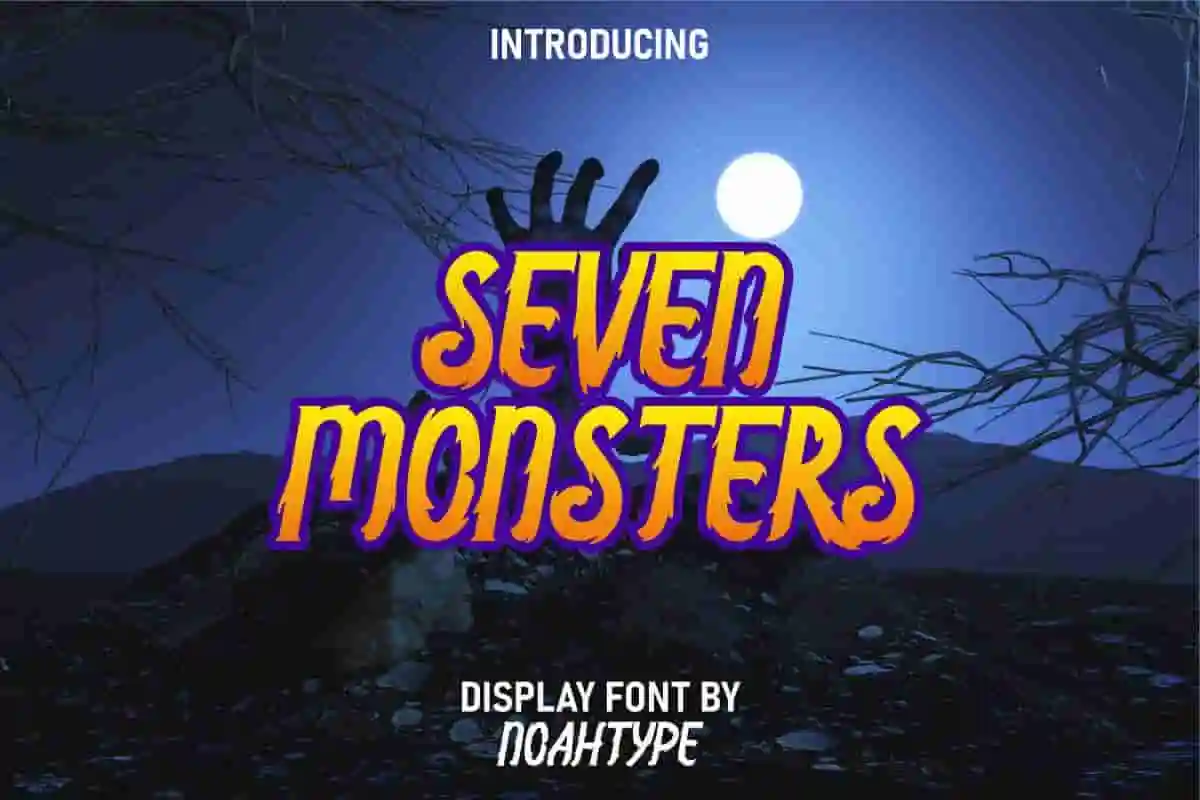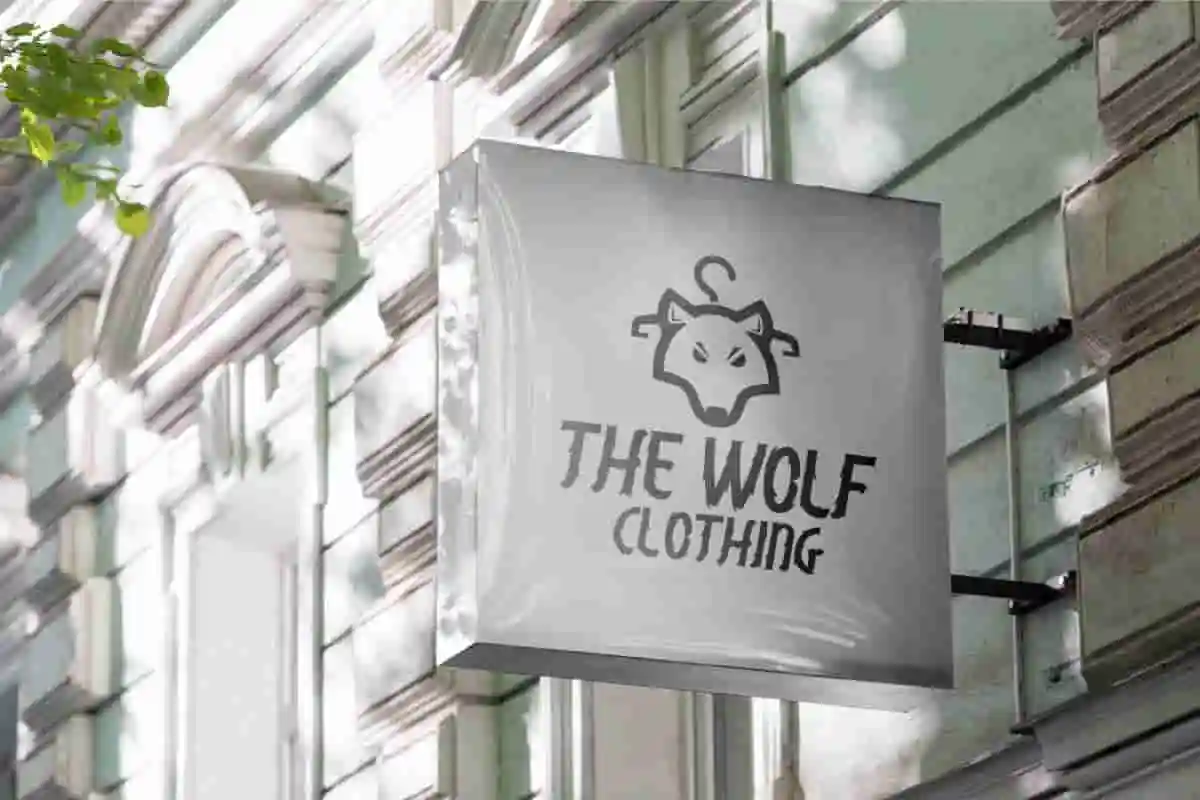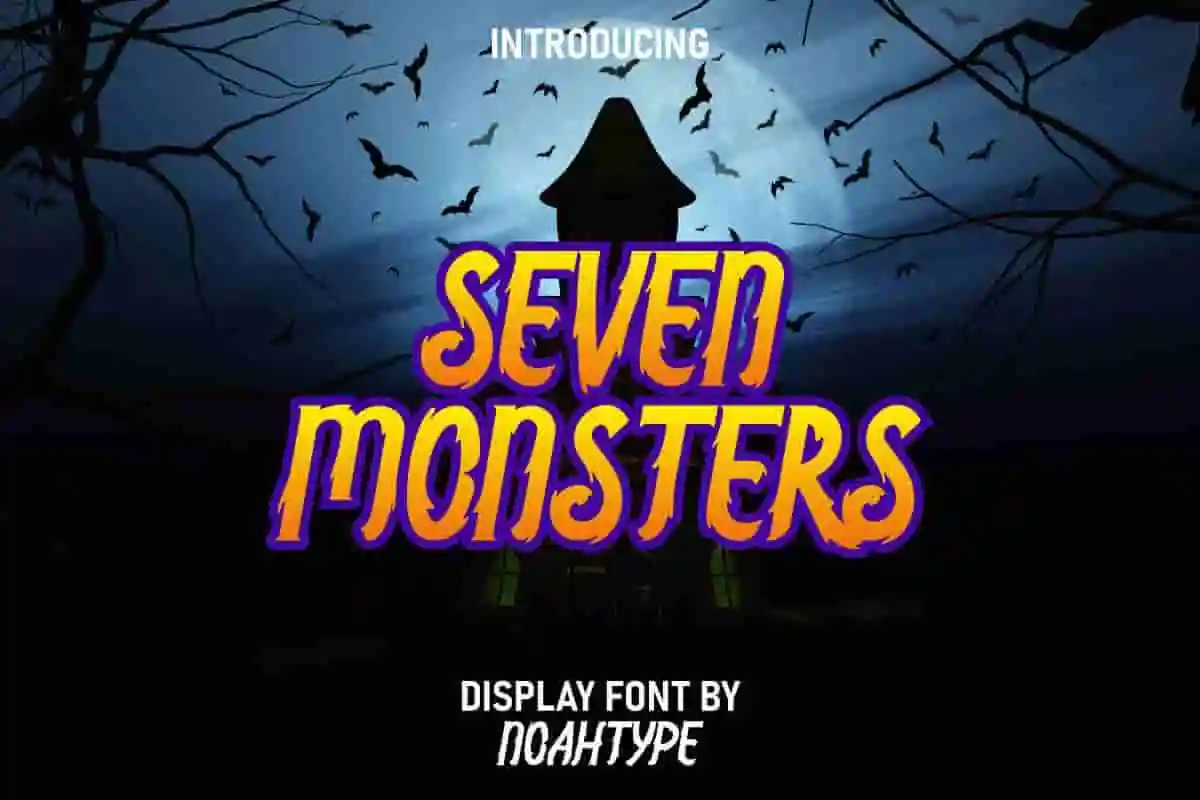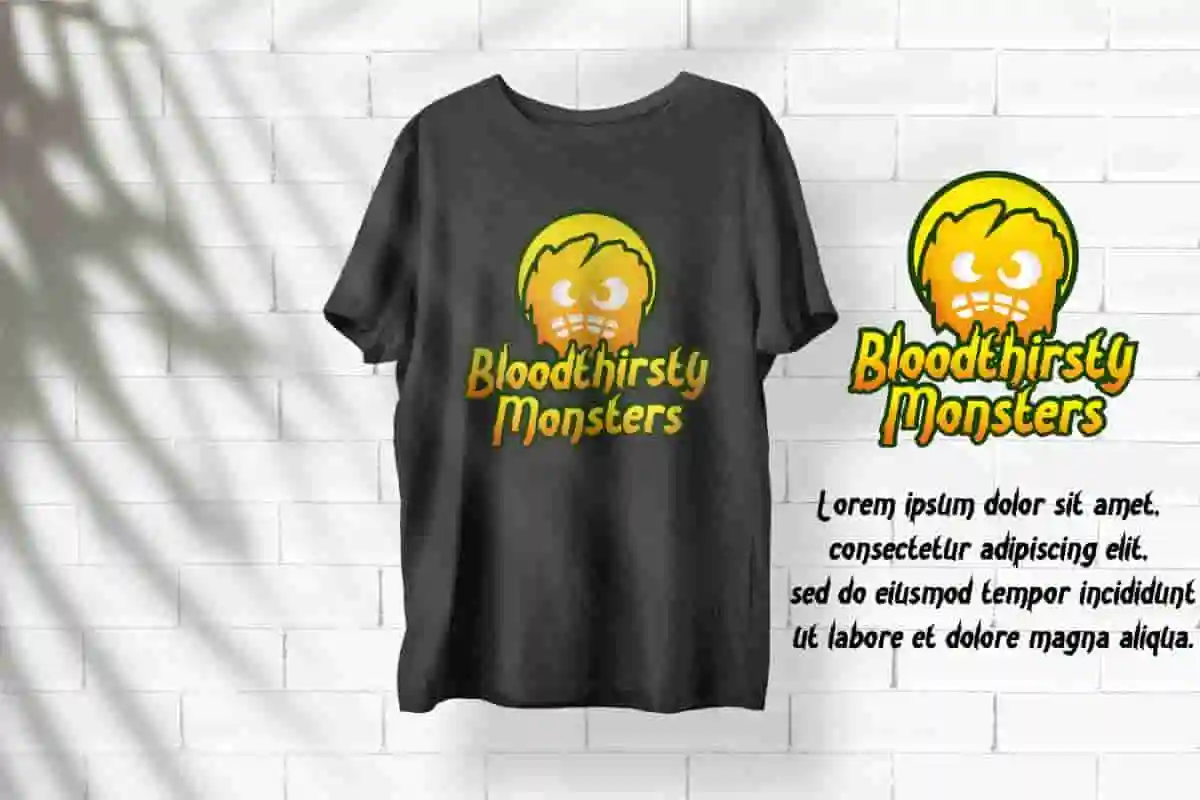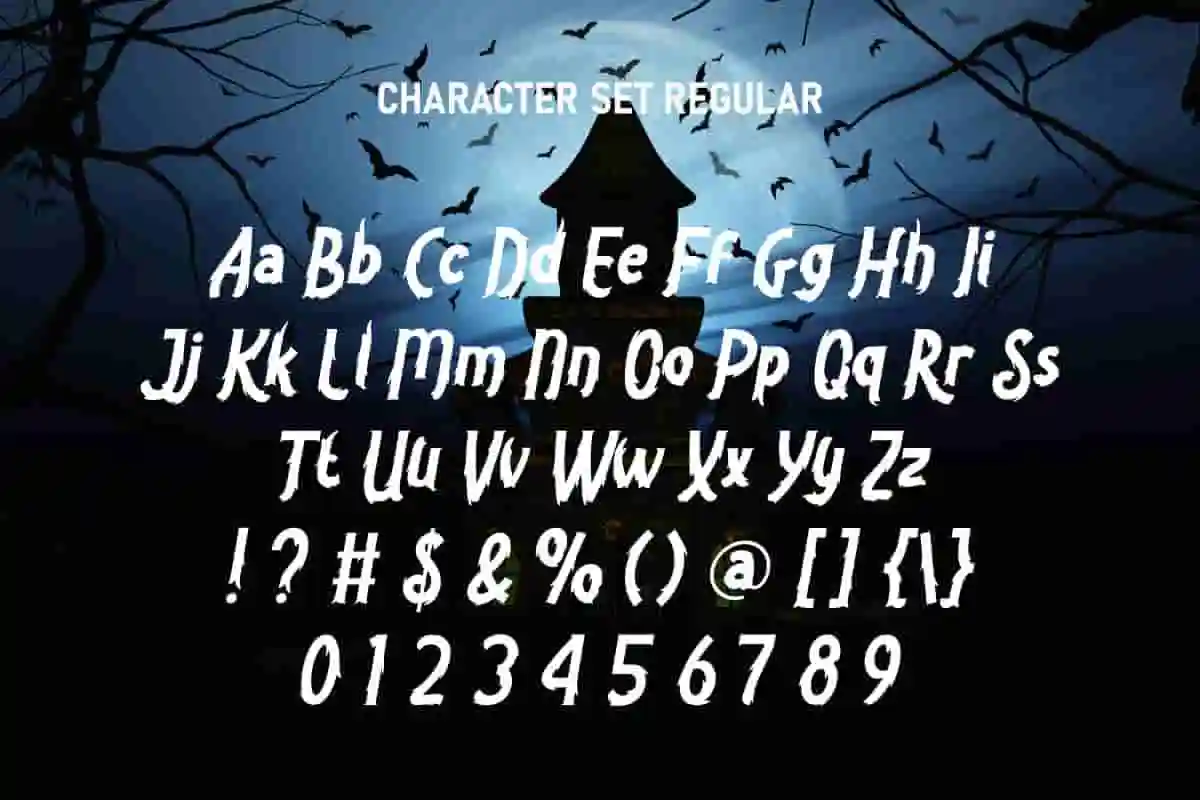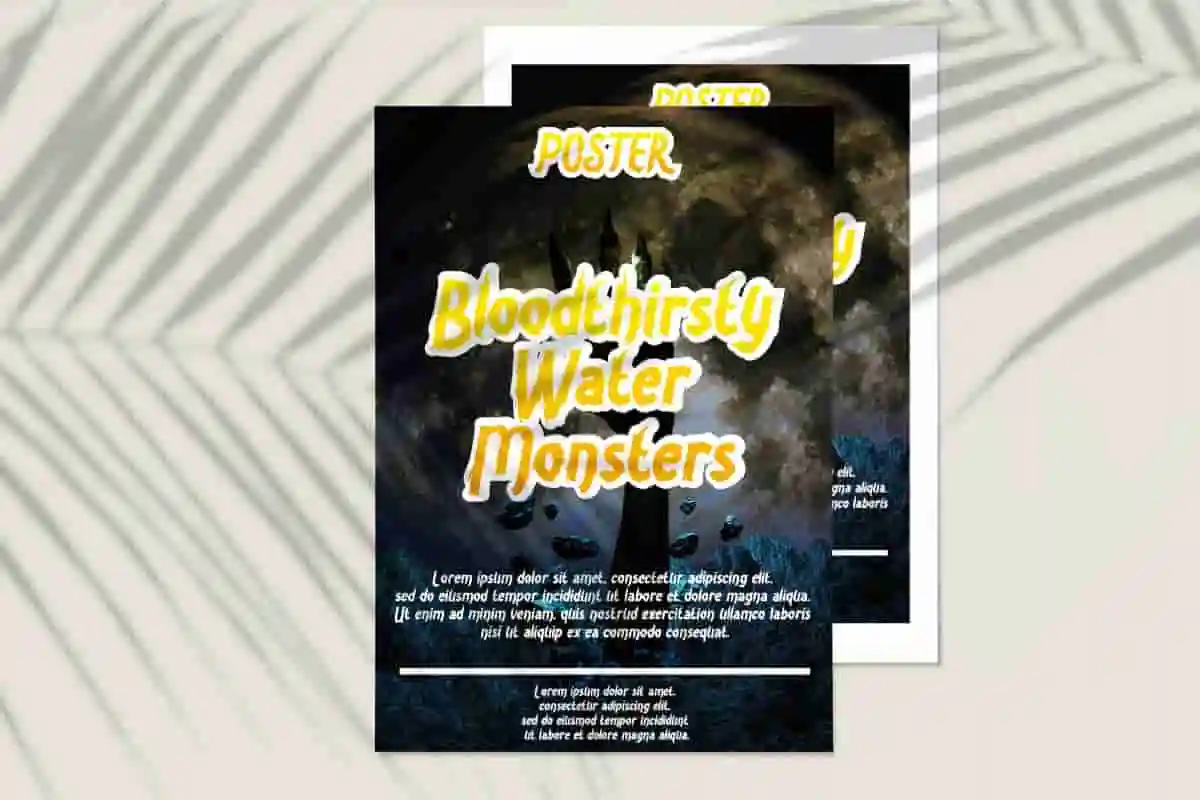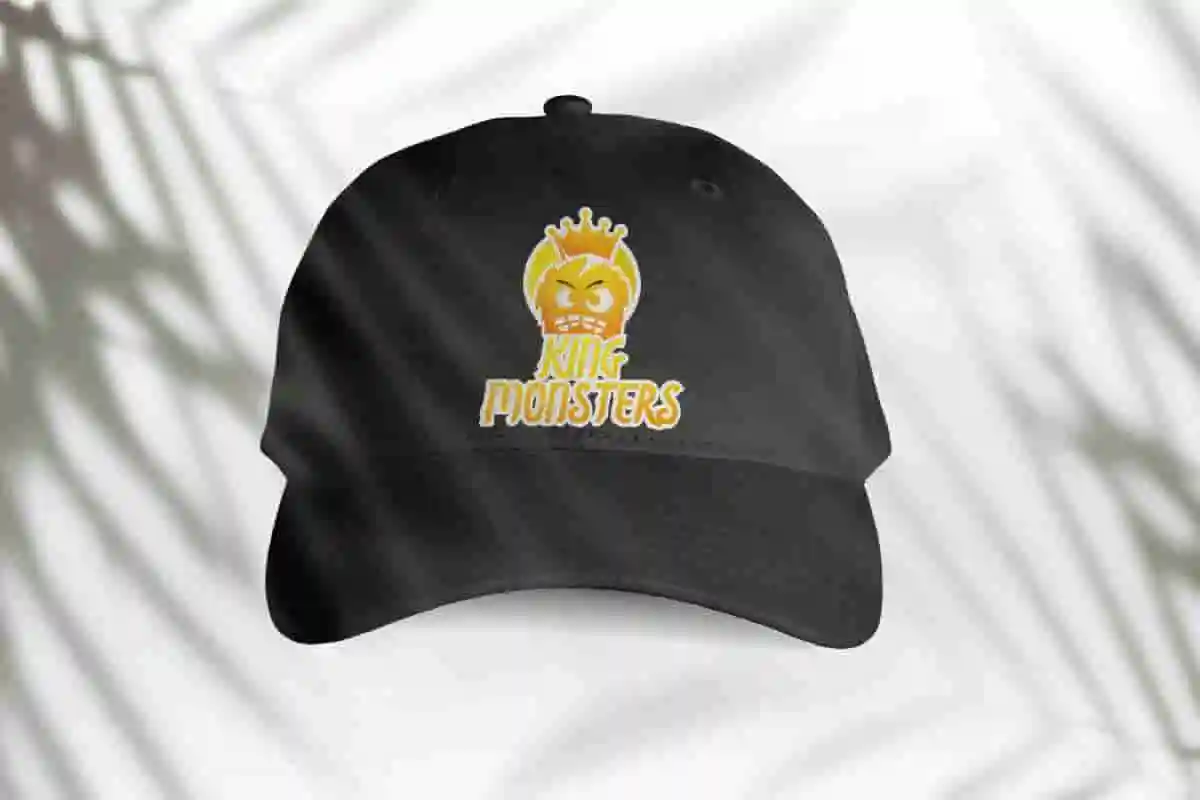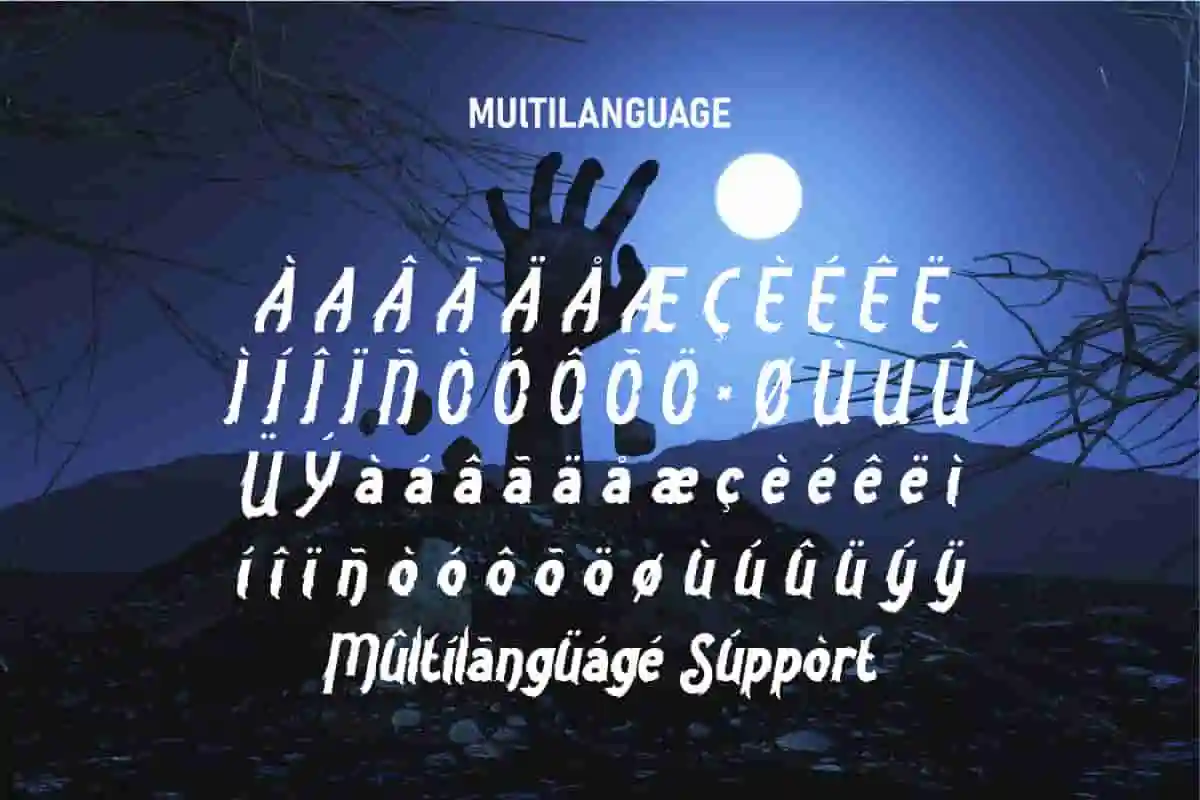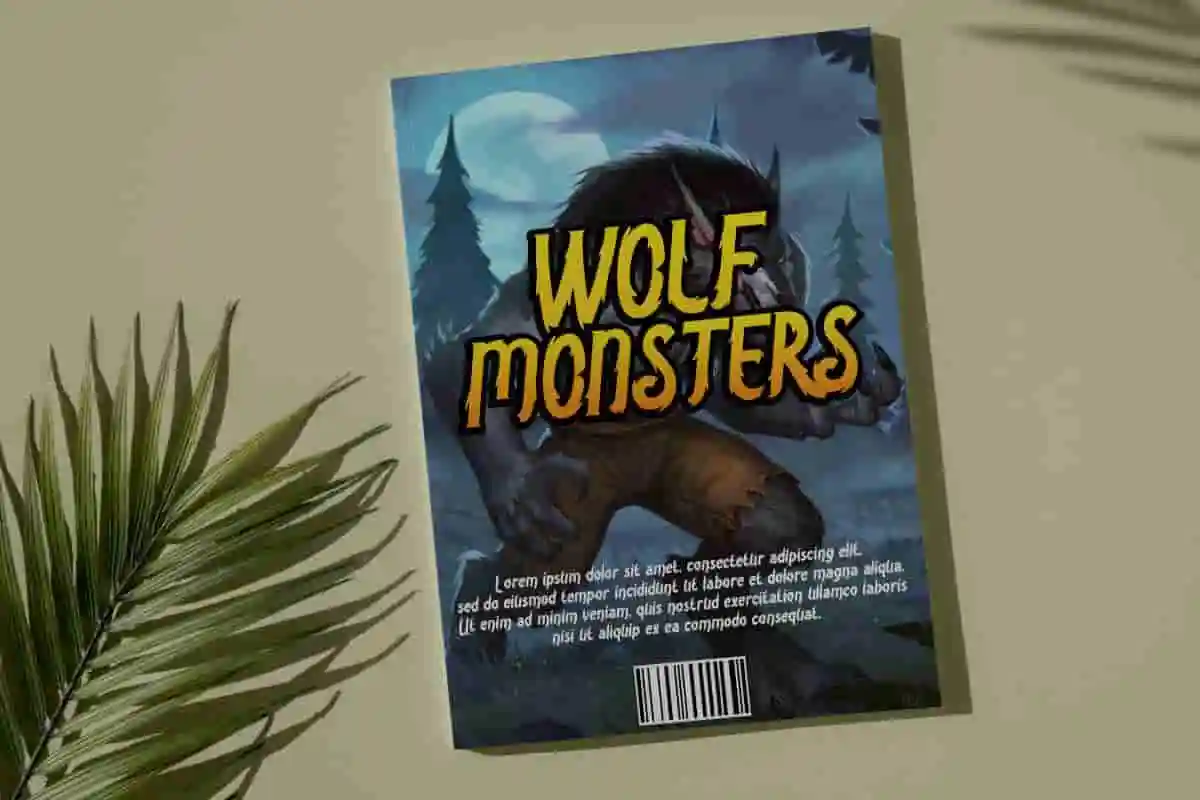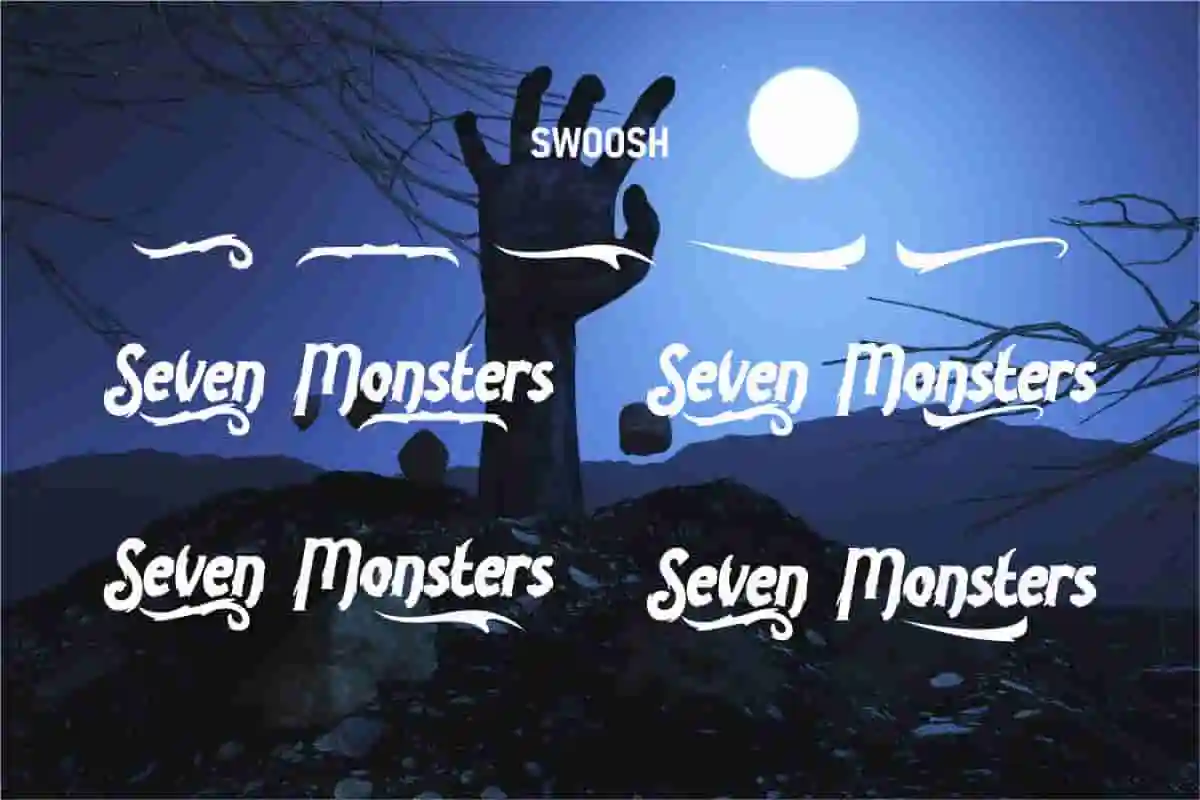
Seven Monsters Font is a horror display font created by Noahtype. This font has a unique texture that adds a spooky feel to your stunning projects. It will be suitable for many industry: animator, author, café, fashion, festival, film, horror event, publishing, and more.
Seven Monsters Font includes set of Uppercase and Lowercase Basic Characters, Numerals and Punctuation. Also it contains swoosh to create a cool look that makes goosebumps! This font will be perfect for your projects that need a horror look such as billboard, creating logo, custom printing, headline, invitation, label, poster, product packaging, signage, etc.
If you’re looking for a bold, fun, and unforgettable typeface, Seven Monsters Display Font is the perfect choice. This unique display font combines playful curves with eye-catching details, making it an ideal option for projects that need a strong personality and a touch of creativity.
Seven Monsters Font supports multilingual languages (including multiple currency symbols) with a simple installation, also have swoosh characters options that you can select and use to make it standout. The font will be ready to use both on Windows machine or Mac. It work well on Adobe software such as Illustrator, Photoshop and several other software.